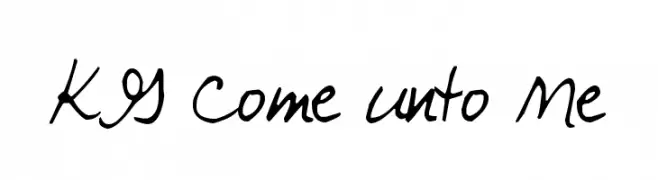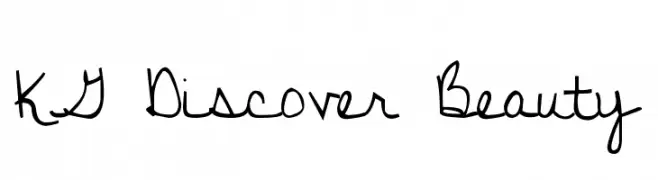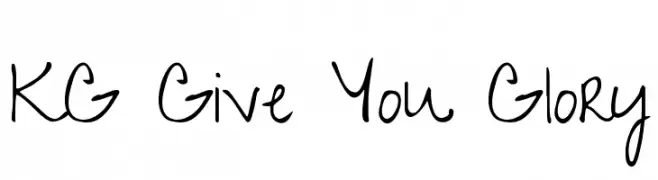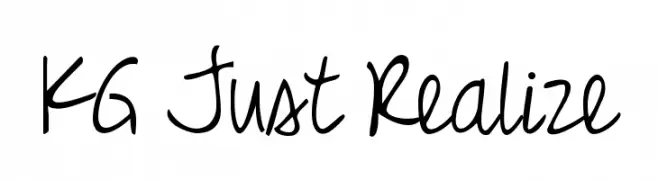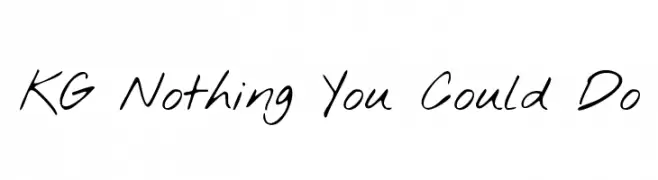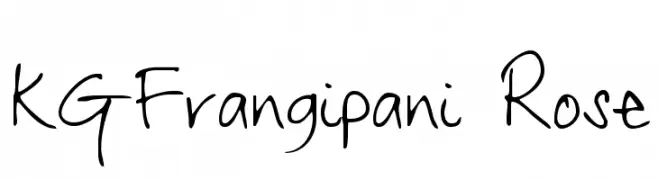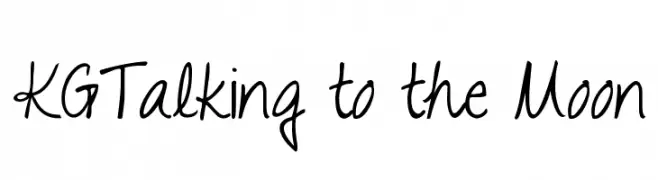
A playful, casual handwritten font with fluid strokes and a natural feel.
A lively, handwritten cursive font with fluid, energetic strokes.
A playful and casual handwritten font with fluid, organic strokes.
A playful, handwritten font with fluid, irregular strokes.
A playful, casual handwritten font with fluid strokes and a natural flow.
A playful and whimsical handwritten font with fluid and dynamic letterforms.
A playful, casual handwritten font with fluid strokes and a relaxed feel.
A casual, handwritten font with fluid and natural strokes.
A playful and whimsical script font with fluid, connected letterforms.
A playful cursive font with fluid strokes and a whimsical, handwritten style.